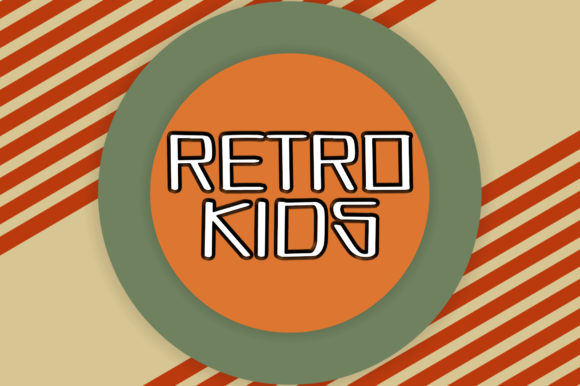
Embark on an otherworldly adventure with Retro Kids Font, a display font that ignites your imagination and brings a touch of enchantment to your designs. Each character dances with playful energy, radiating an irresistible charm that captivates the hearts of all who behold it.
Unleash your creativity and let your designs soar to newfound heights with Retro Kids Font. Its whimsical and futuristic aesthetics are a perfect match for projects that seek to evoke nostalgia and a sense of wonder. From whimsical posters and eye-catching social media graphics to enchanting invitations and heartwarming greetings, this font will transform your words into works of art.
Dive into a world of limitless possibilities with Retro Kids Font. Its versatile nature allows it to effortlessly adapt to a wide range of design styles, making it an invaluable asset for designers who crave diversity and uniqueness. Experiment with different colors, sizes, and arrangements to discover endless combinations that resonate with your creative vision.
With Retro Kids Font, your designs will radiate a distinctive personality and leave a lasting impression on your audience. Its charming curves and dynamic lines capture attention and invite viewers to explore the depths of your creativity. Whether you're creating designs for personal projects or professional endeavors, this font is your passport to a realm of captivating visual experiences.
Don't let ordinary fonts hold you back from expressing your boundless imagination. Embrace the magic of Retro Kids Font and unlock a universe of creative possibilities. Let your designs take center stage and ignite the hearts of those who encounter them. Dive into the world of Retro Kids Font today and elevate your designs to extraordinary heights!